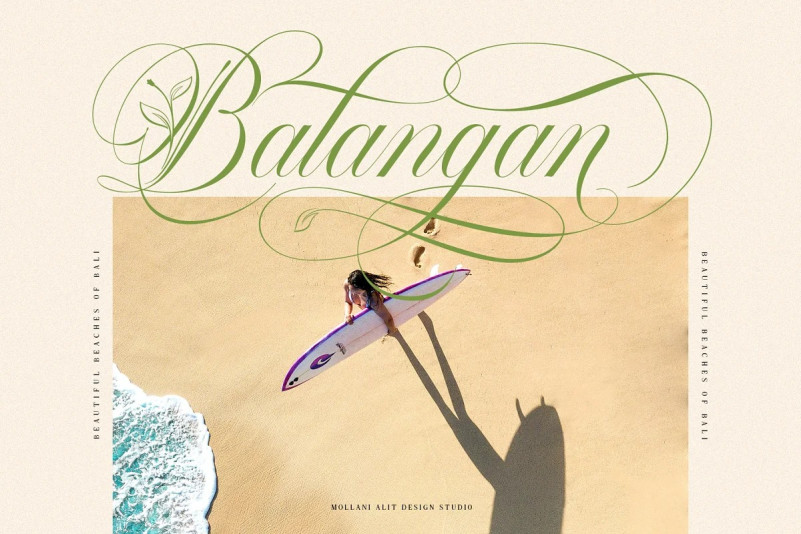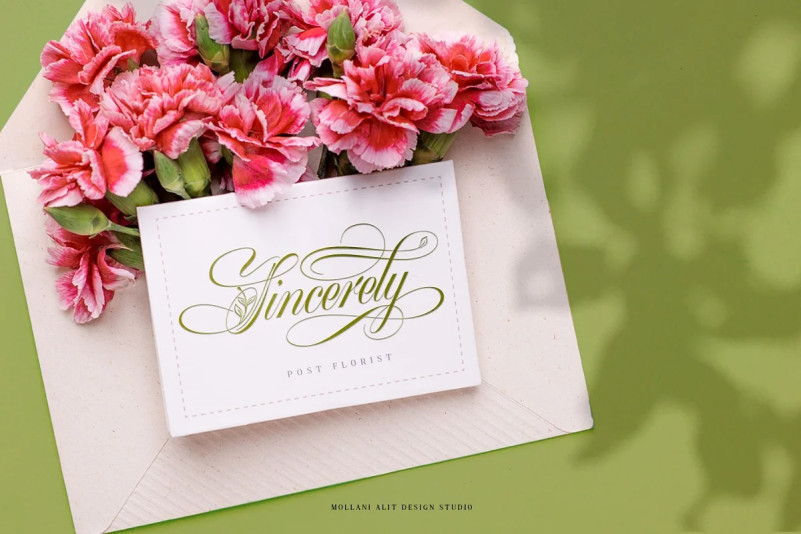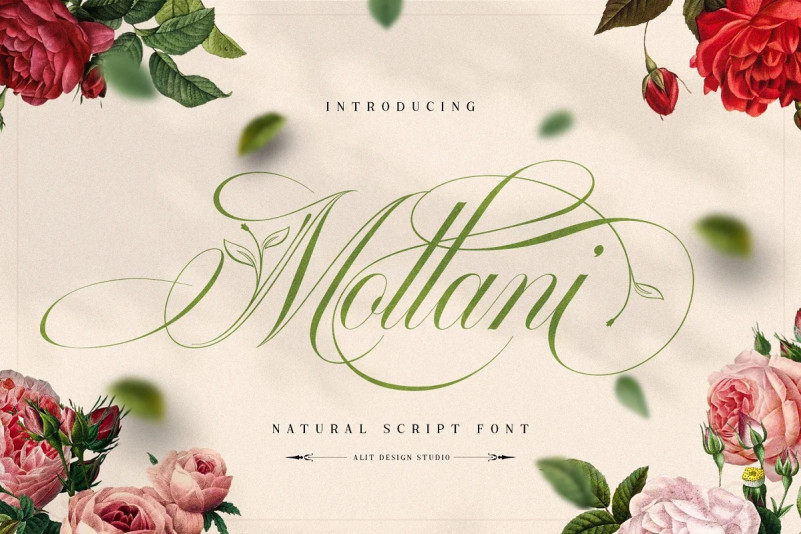
Mollani Font
The Mollani font includes full set of Uppercase and Lowercase Basic Characters, Numerals, Punctuation and Multi lingual support. Also it contains ligatures and a lot of stylistic alternatives to perfectly re-create natural calligraphy and nature concept designs (check the previews in order to see them all).
The Mollani font has alternatives that you can combine between swashes and symbols that have the theme of elegant nature. Besides that this font is very easy to use both in design and non-design programs because everything changes and glyphs are supported by Unicode (PUA).
The Mollani Nature Script Font has a total of 818 glyphs including symbol, multilingual.